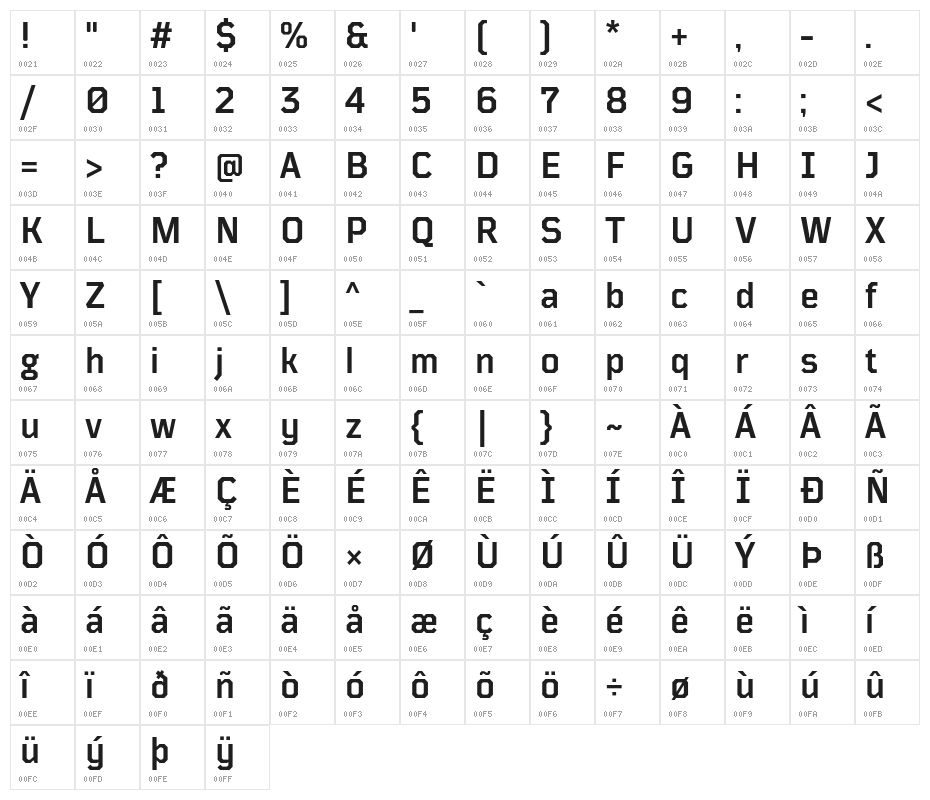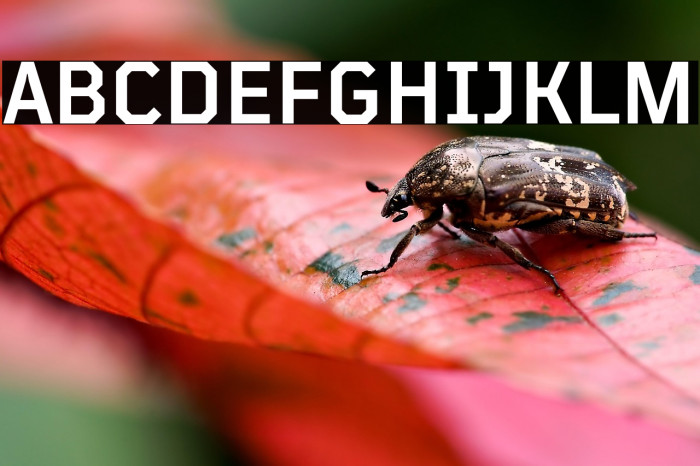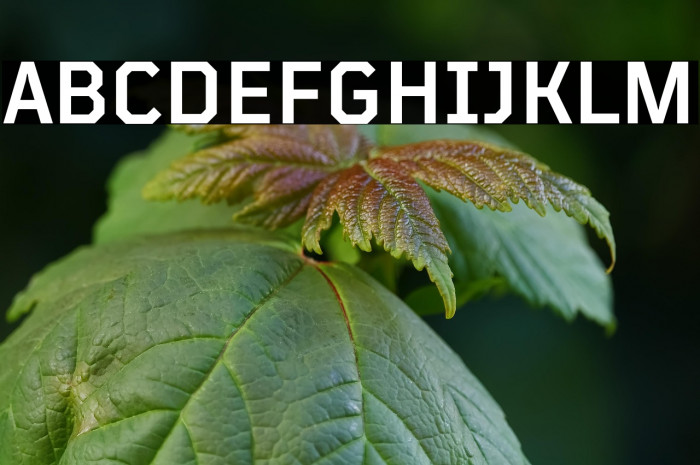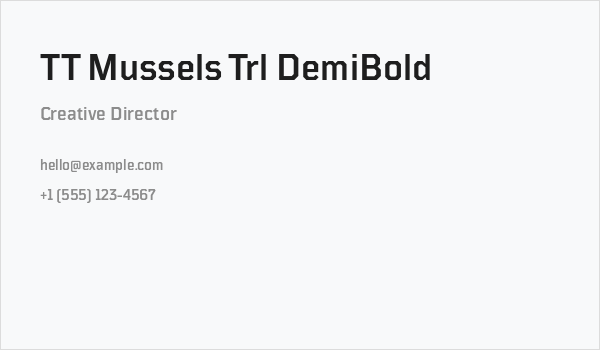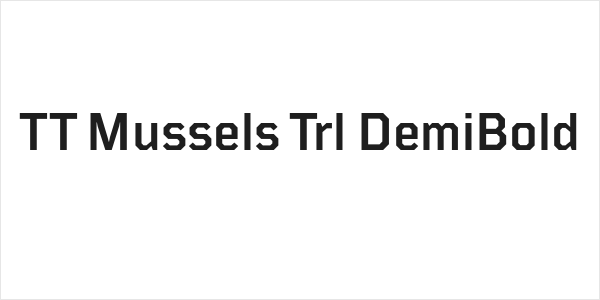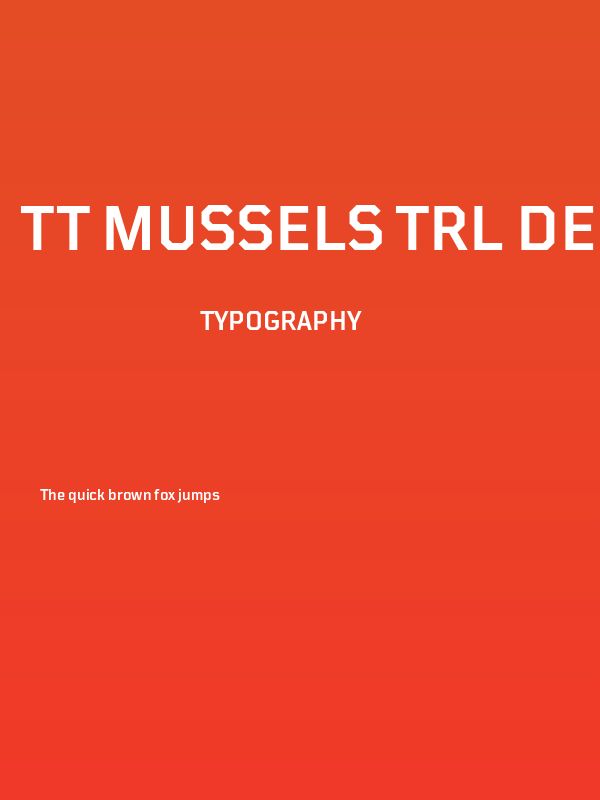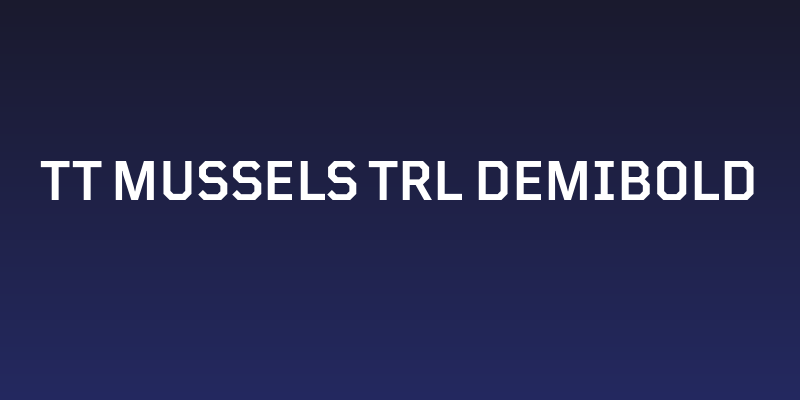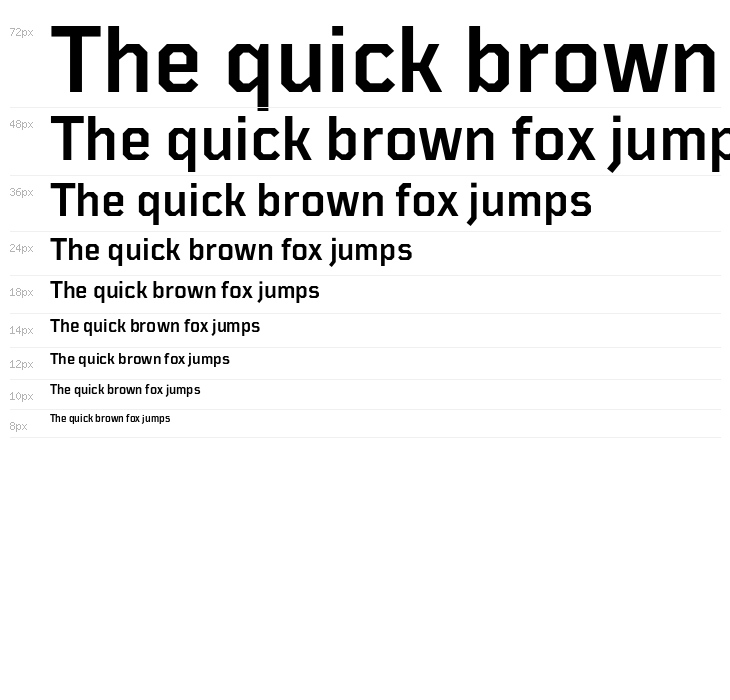
TT Mussels Trl DemiBold Font
TT Mussels Trl DemiBold Description
This font presents a bold and geometric style with a modern twist. The characters are structured with sharp angles and straight lines, creating a strong and impactful appearance. The uppercase letters are uniform in height, while the lowercase letters maintain a consistent baseline, enhancing readability. The numerals are distinct and align well with the overall design, making them suitable for various applications. Special characters are crafted to match the font's angular aesthetic, ensuring a cohesive look across all text elements. The font's clean and precise design makes it versatile for both digital and print media.
| Proposed Projects | Ideal for branding, headlines, posters, and digital interfaces where a strong visual impact is desired. |